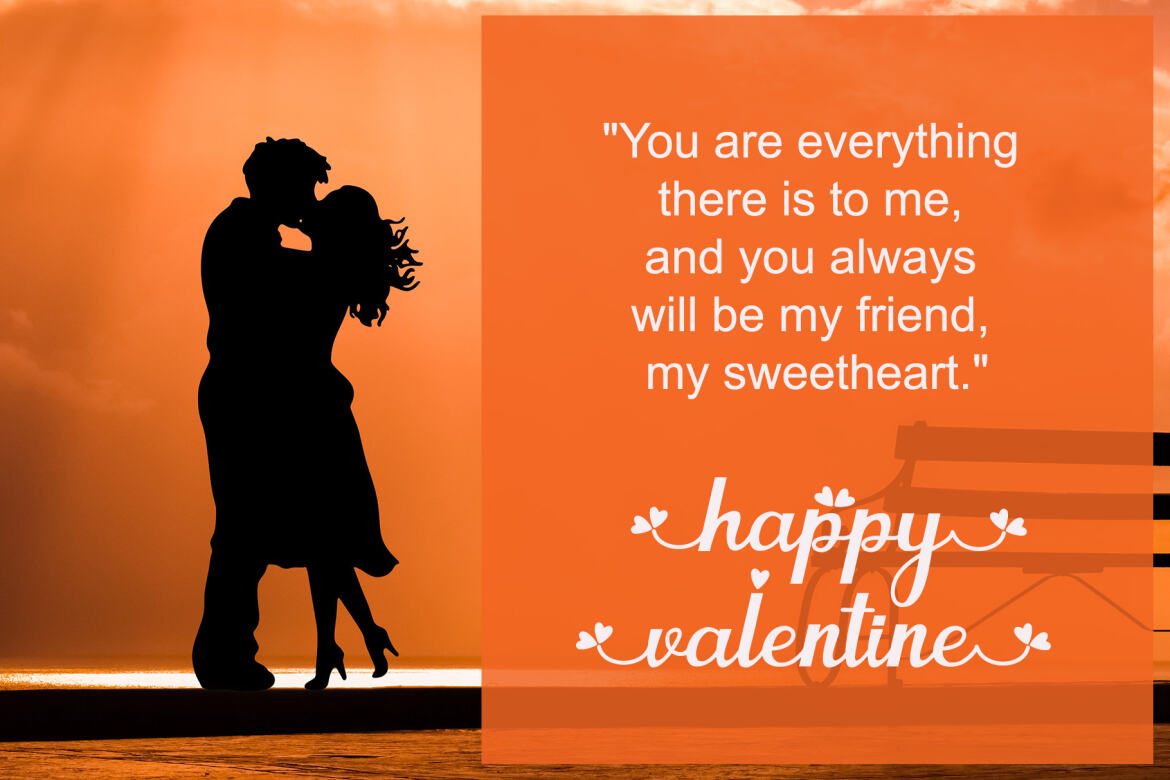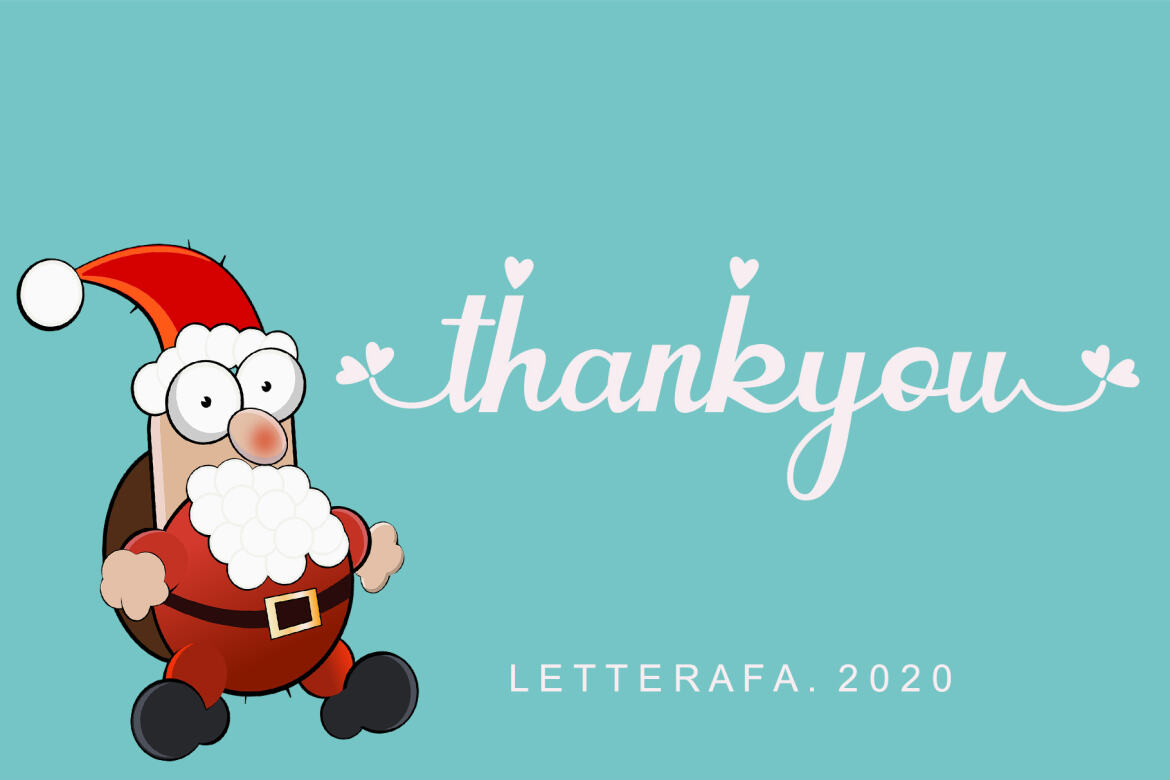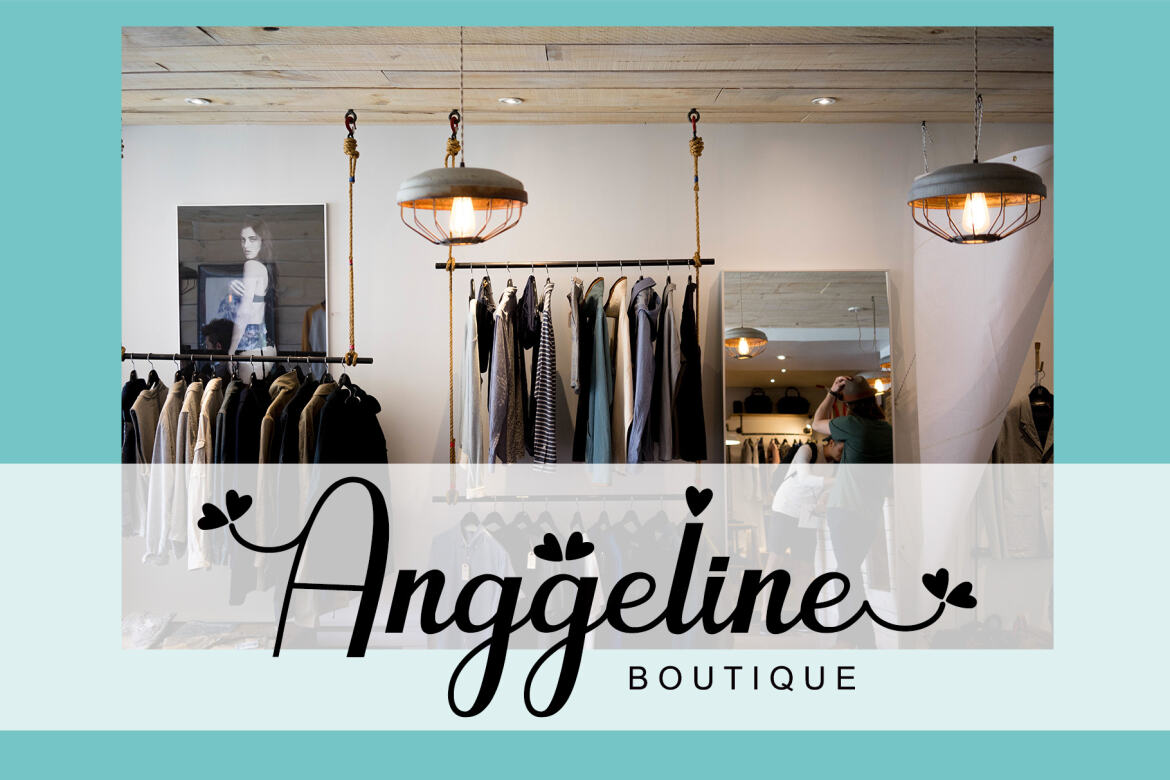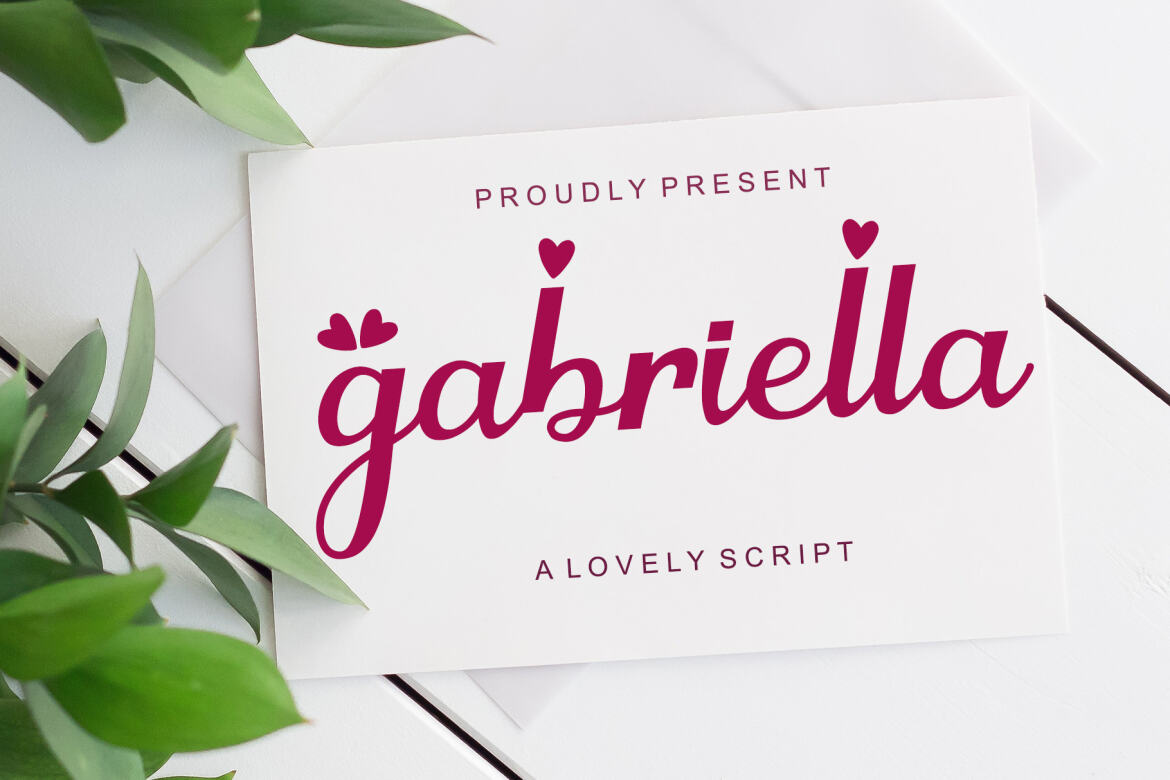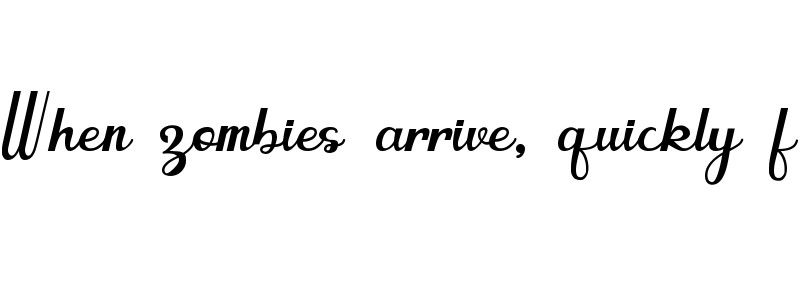
Gabriella - Free Font
Gabriella is a romantic and cursive calligraphy typeface with characters that dance along the baseline. It can be used for various purposes such as logos, wedding invitations, headings, t-shirts, letterhead, signage, labels, news, posters, badges and so much more. Gabriella is PUA encoded which means you can access all of the glyphs and swashes with ease!